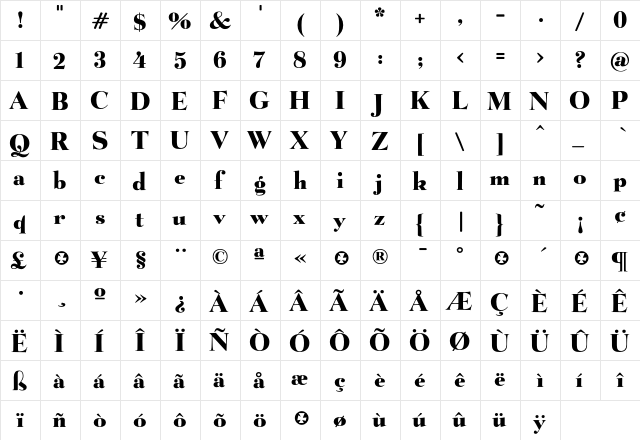
BeLucianUltra Regular
Design Context for BeLucianUltra Typeface
BeLucianUltra takes a measured approach to typography — its balanced proportions and neutral character make it a reliable workhorse for both digital and print work.